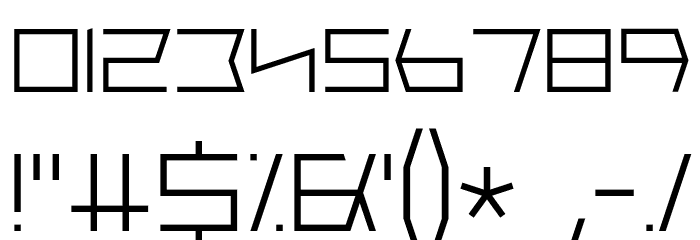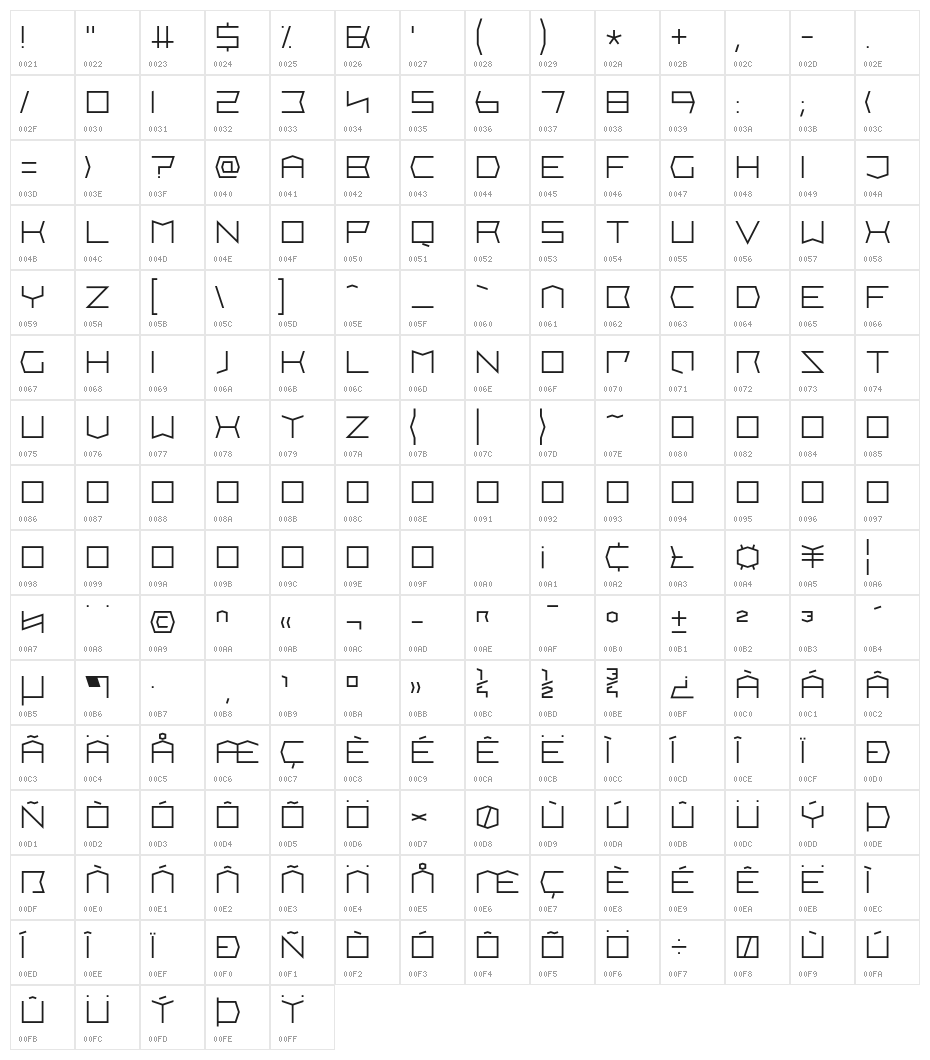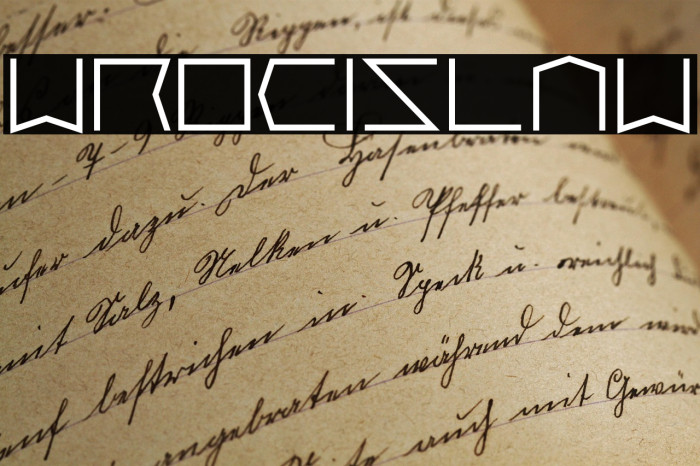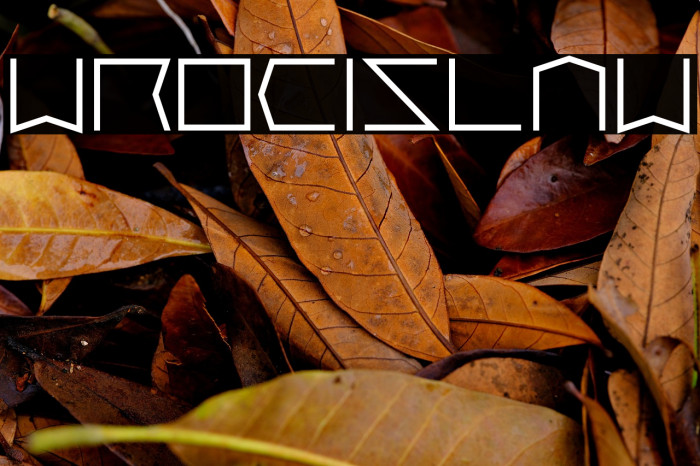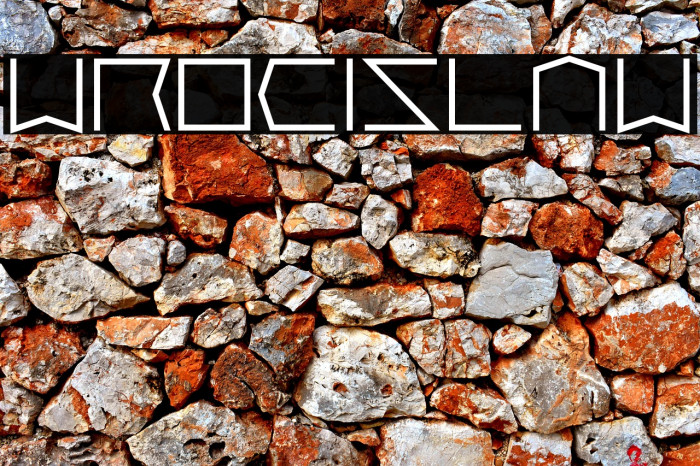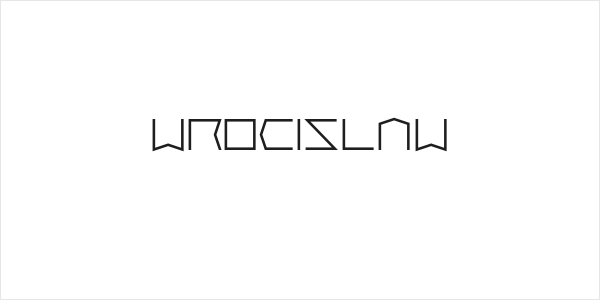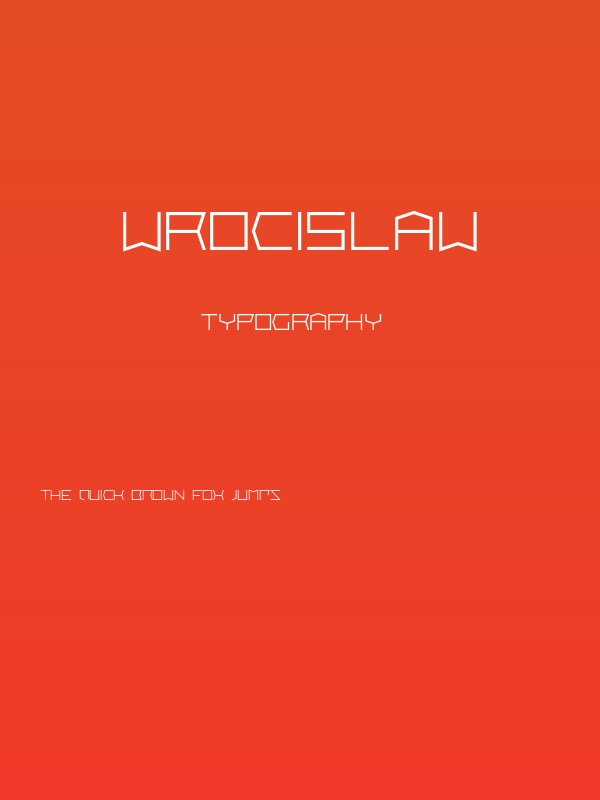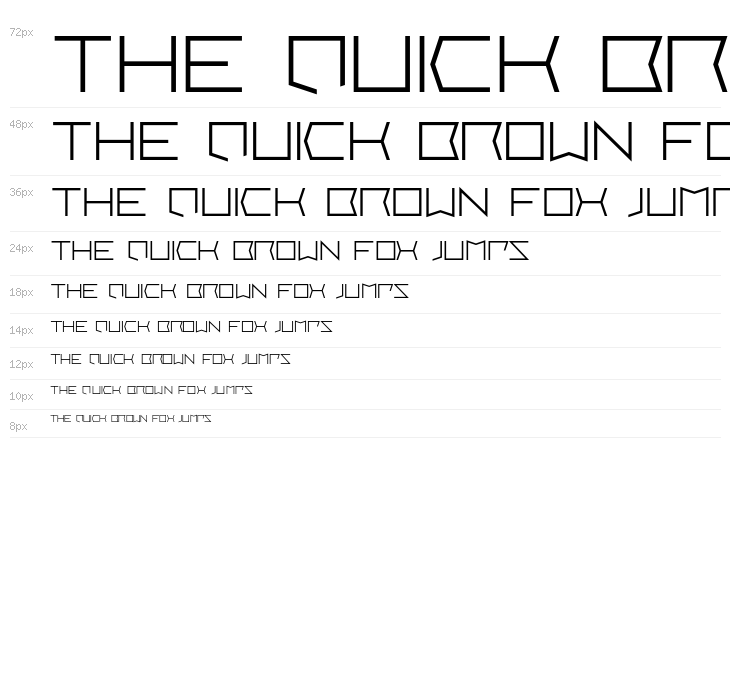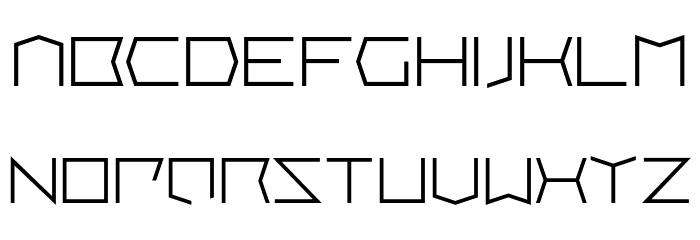
Wrocislaw Font
Wrocislaw Description
This font features a geometric and angular design, characterized by its sharp edges and clean lines. The uppercase and lowercase letters maintain a consistent style, with a futuristic and technical appearance. The numbers and special characters follow the same design principles, ensuring uniformity across all glyphs. The font's structure is minimalistic yet bold, making it suitable for modern and digital-themed projects. Its unique style is eye-catching and can be used to create a strong visual impact.
| Proposed Projects | Ideal for tech branding, digital interfaces, modern posters, and futuristic designs. |